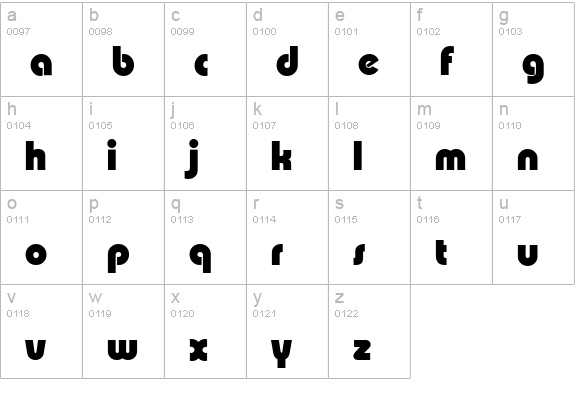
ExpressaSerial-Heavy-Regular Font Details
ExpressaSerial-Heavy-Regular is a heavy, high-impact variant in the ExpressaSerial typeface family \xE2\x80\x94 well suited to high-impact headlines, posters, and display advertising.
ExpressaSerial-Heavy-Regular is a modern and bold font that exudes strength and confidence. Its thick strokes and clean lines make it perfect for headlines, posters, and branding projects. This versatile typeface commands attention and leaves a lasting impression on viewers. The best part? ExpressaSerial-Heavy-Regular is available for free download at FontsMarket.com. Don't miss out on the opportunity to enhance your design projects with this outstanding font. Grab your copy today and elevate your creations to the next level!